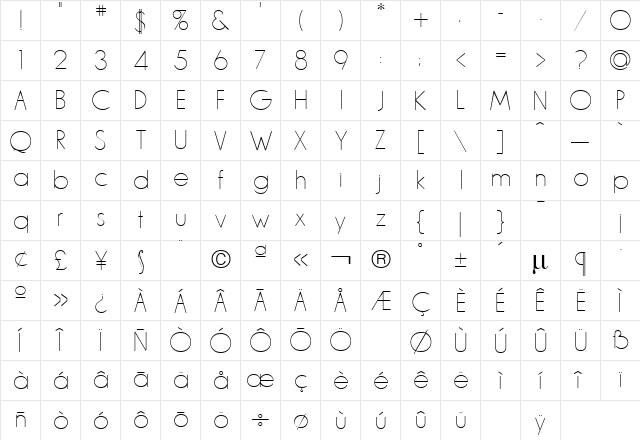
L & C Hairline Regular
Design Context for L & C Hairline Typeface
L & C Hairline offers clean, dependable letterforms without strong stylistic allegiance, making it a practical choice for designers who need flexibility. Its slender proportions lend an understated elegance to any composition.